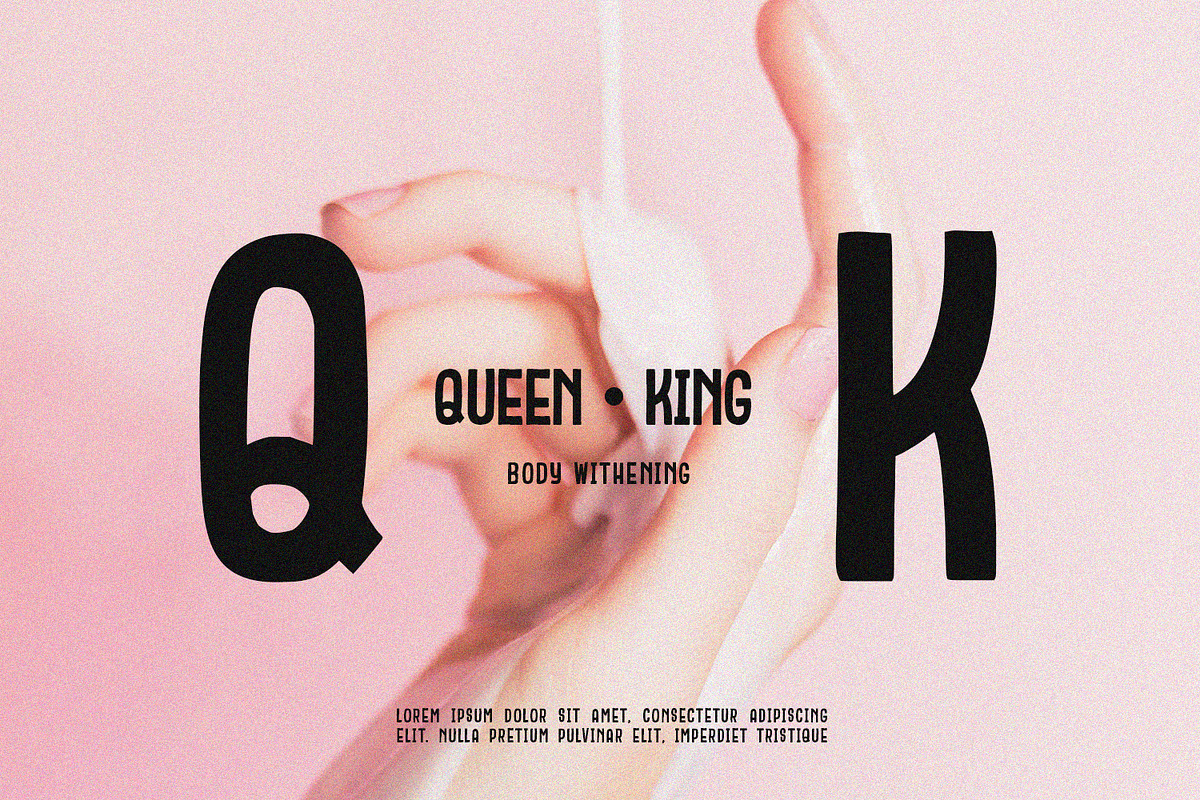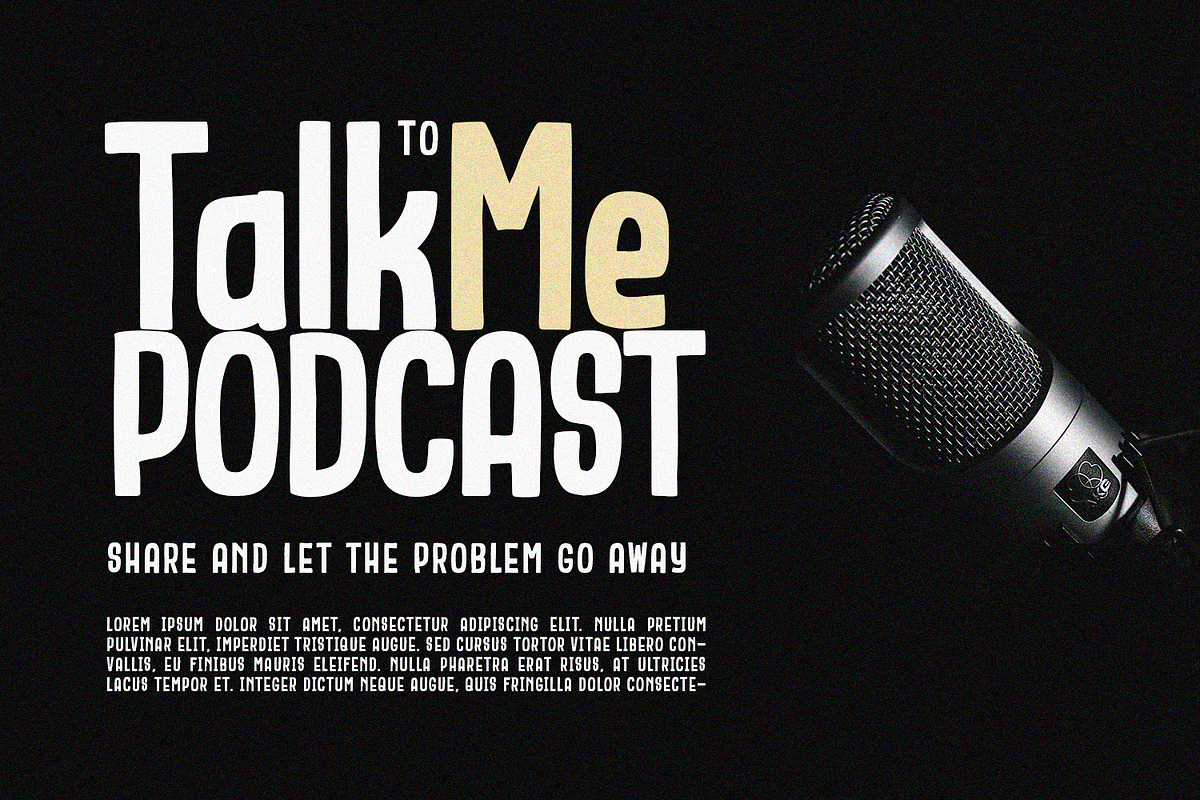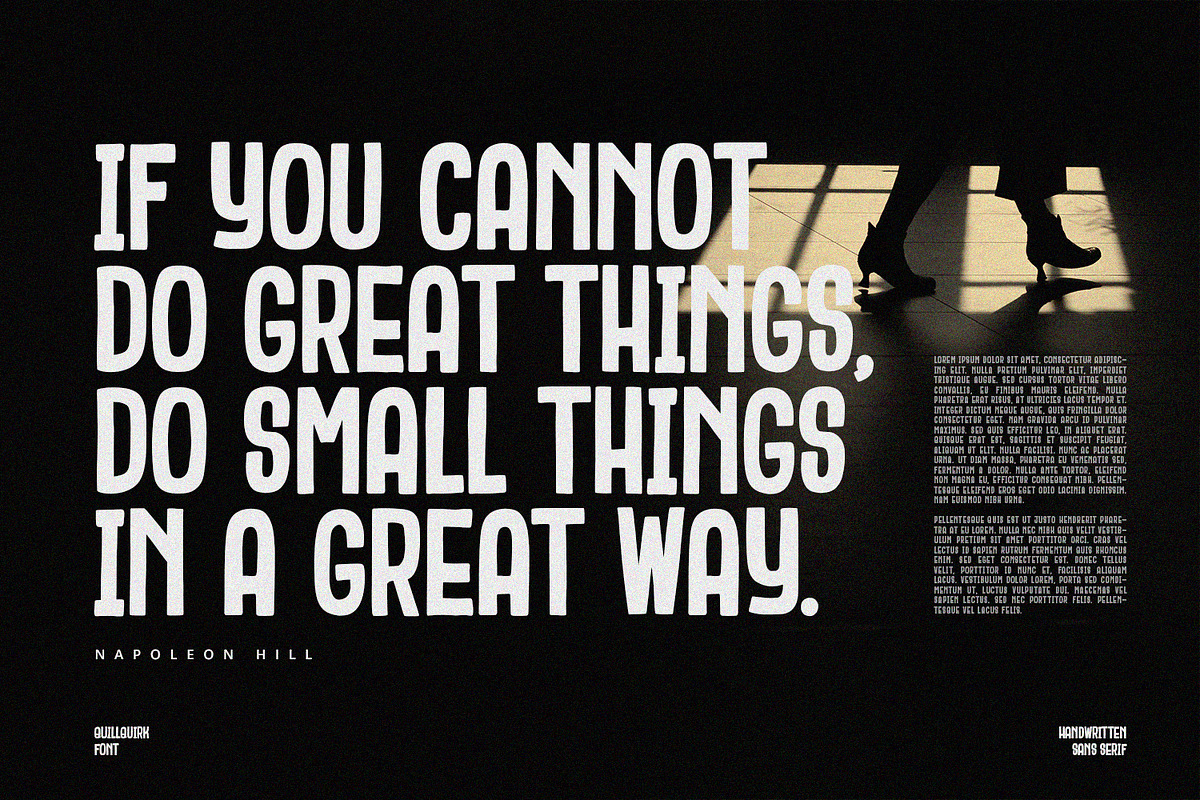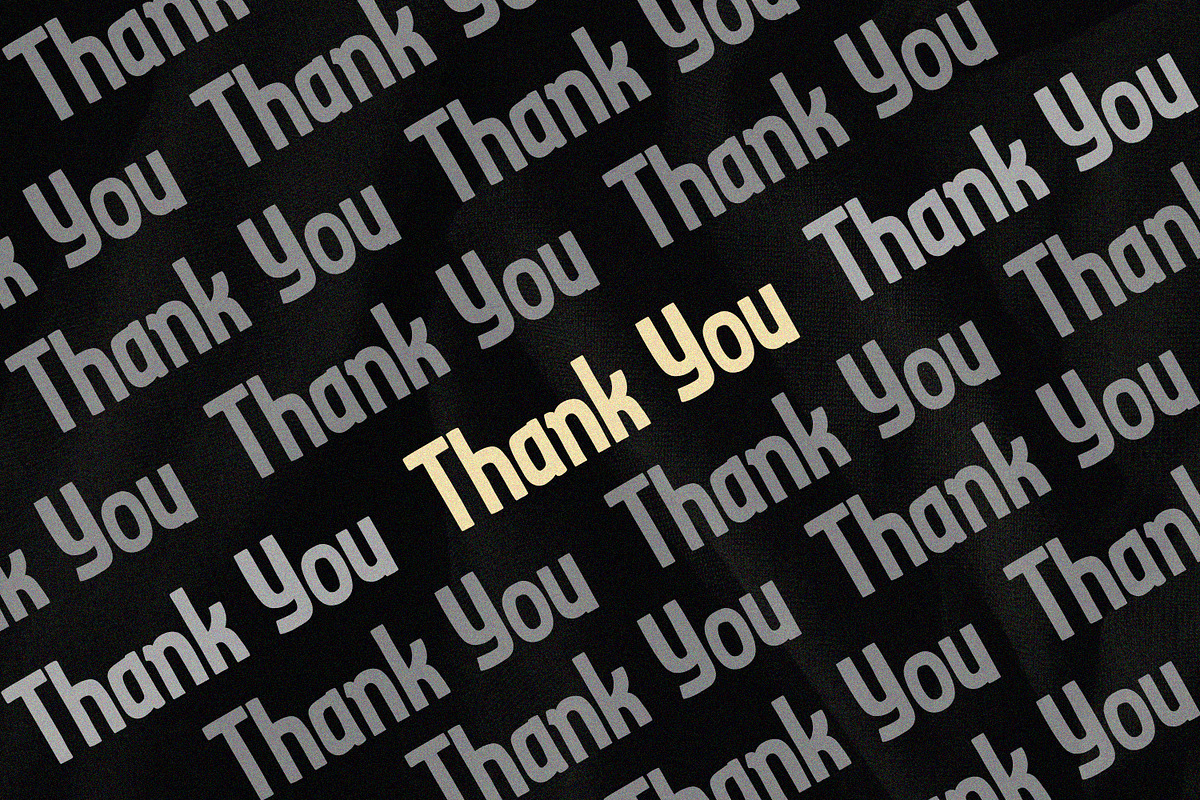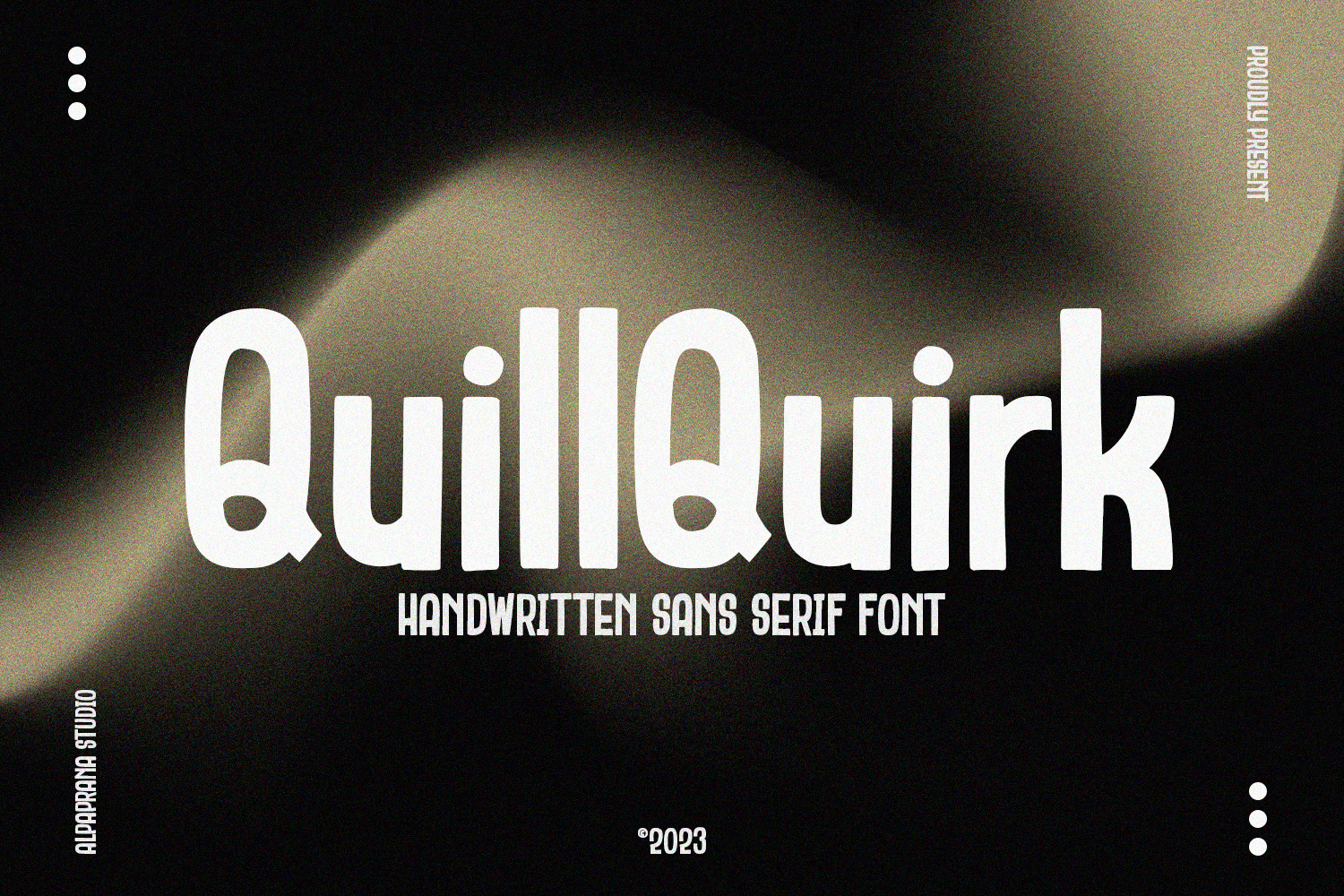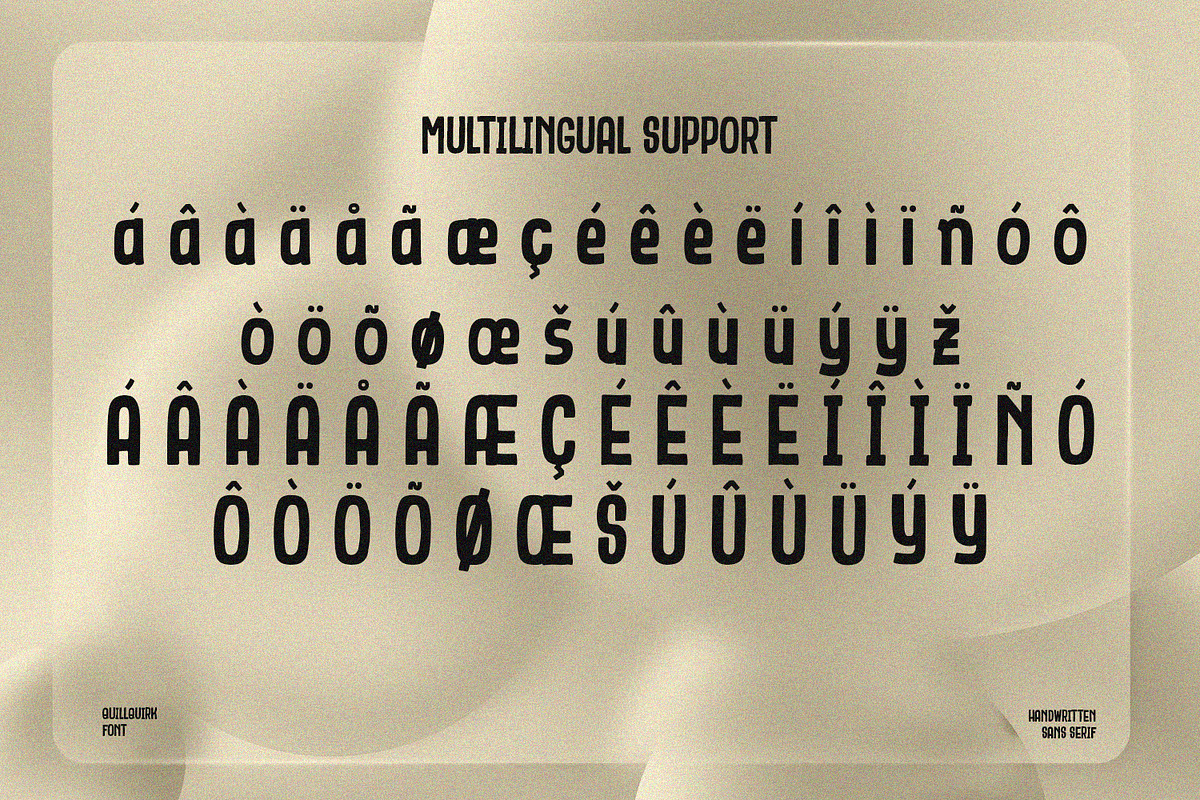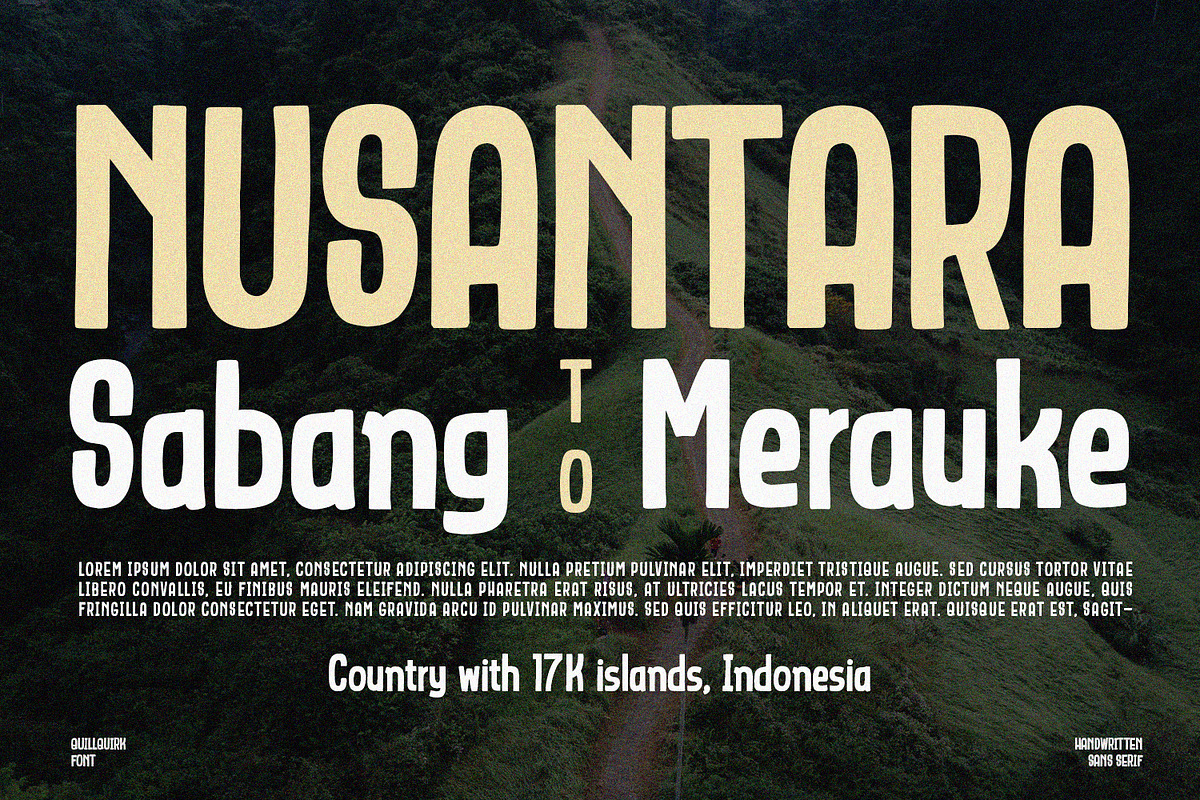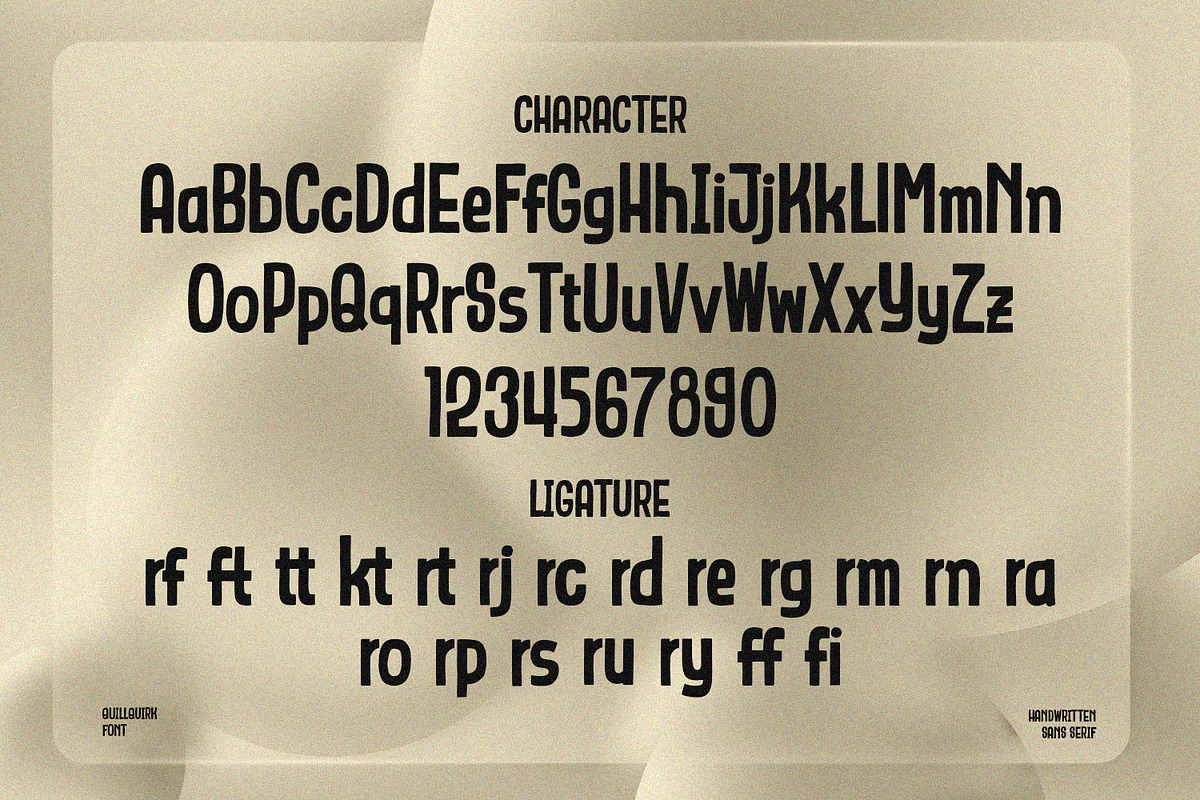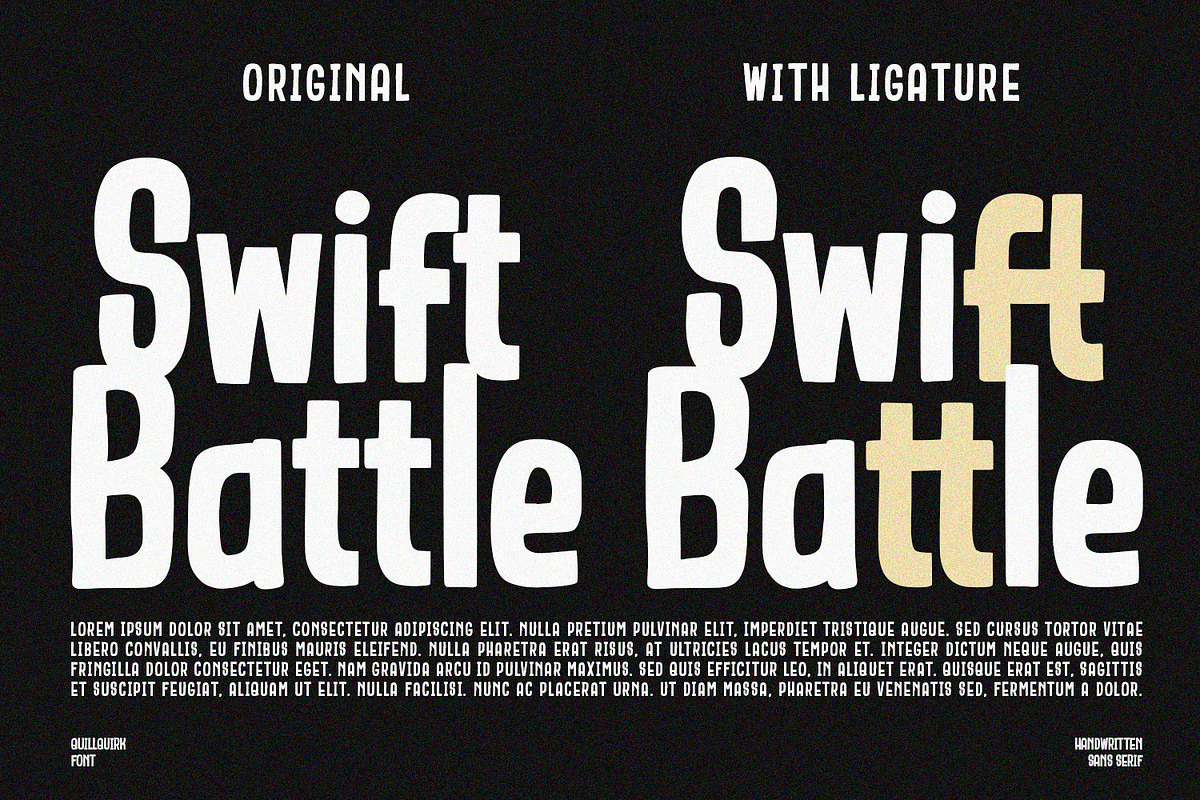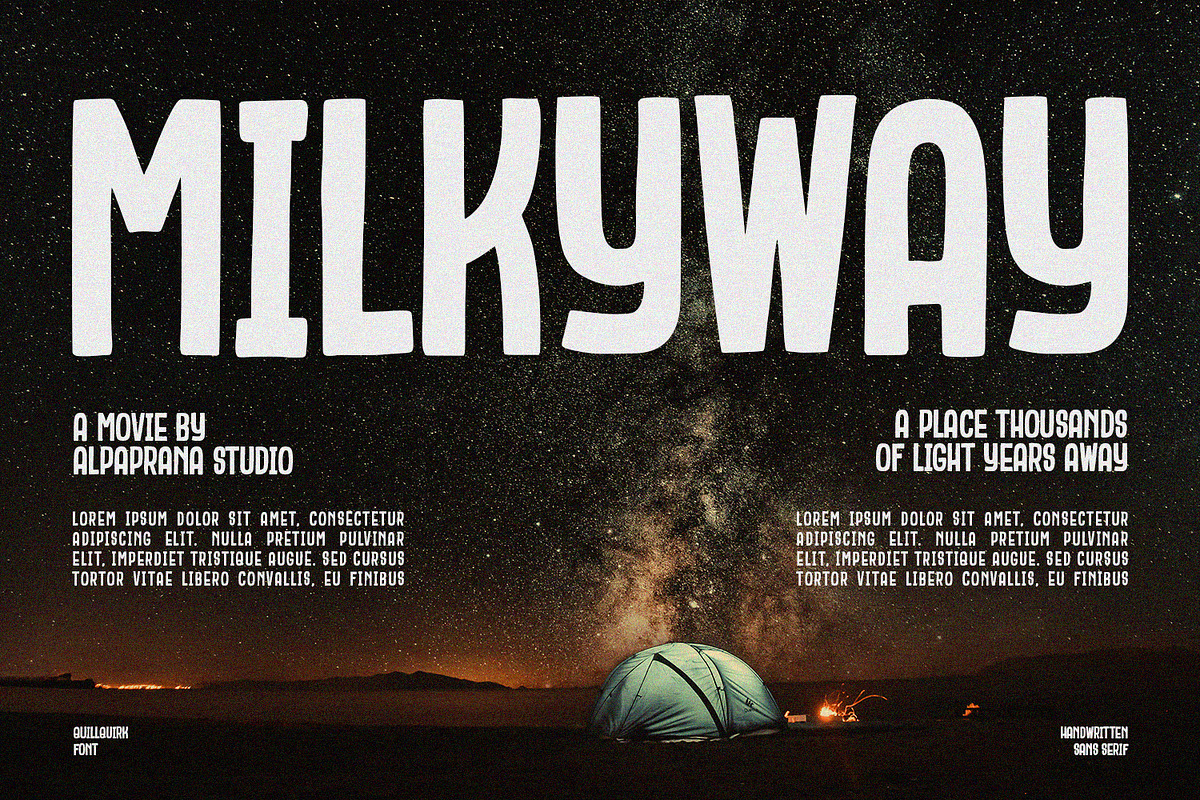
QuillQuirk - Sans Serif Font
QuillQuirk is a sans serif font with authentic and modern feels. It will be perfectly used for Branding, Logo Design, Lettering, Logotype, Clothing, Poster, magazine, packaging, posters, shopping bags, t-shirts, book covers, photography, special events and other design project.